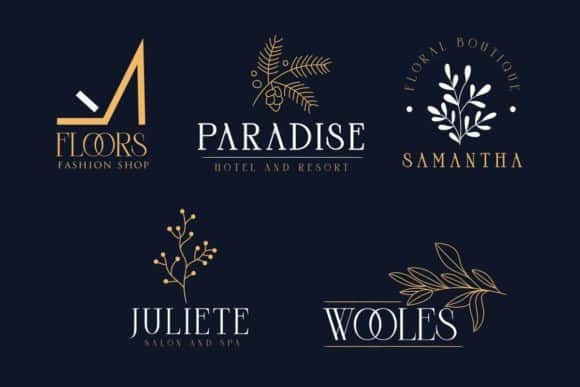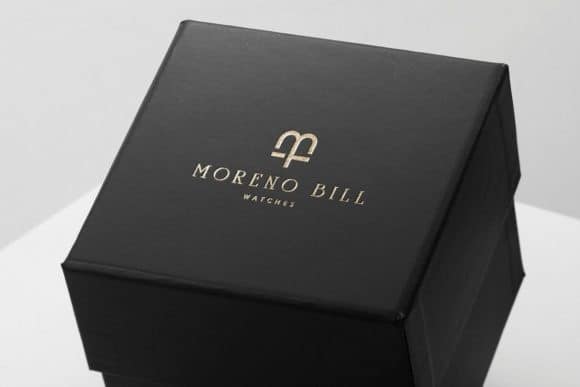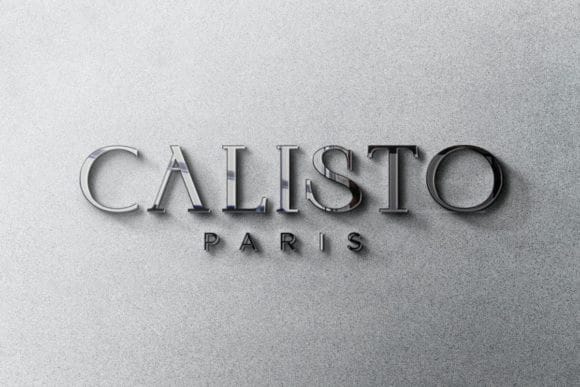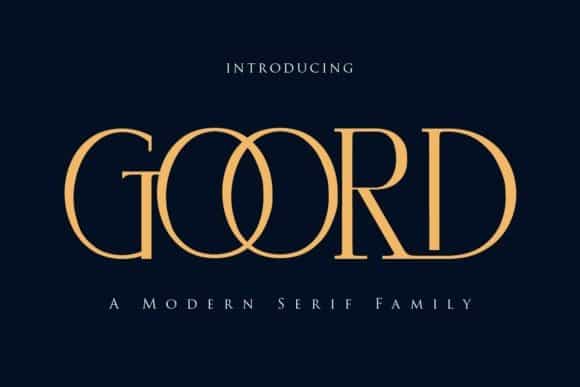
Goord Serif Font
Goord Serif Font is a very feminine and very legible serif typeface, delicacy and elegance are the words that best characterize this font. This font is designed and shared by Gilar Studio. A classic style serif typeface that has been modernised with its unique curves and cut-ins making it one of the most memorable caps fonts on the market. Already matched up and ready to be used together for your next design! For those of you who are needing a touch of elegant, stylish, classy, chic and modernity for your designs, this font was created for you!
Goord Serif Font is perfect also Suitable for Logo, greeting cards, quotes, posters, branding, name card, stationary, design title, blog header, art quote, typography, art, modern envelope lettering or book design,craft design, any DIY project, book title, or any purpose to make your art/design project look pretty and trendy.